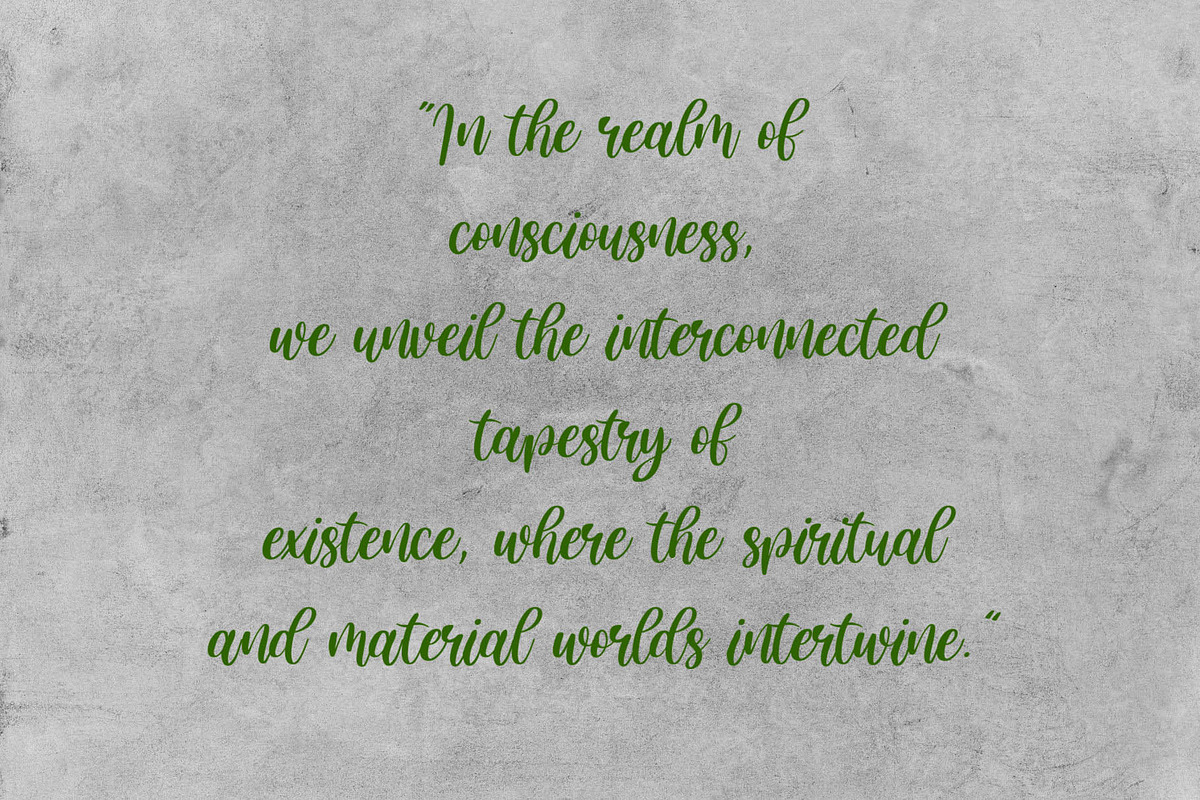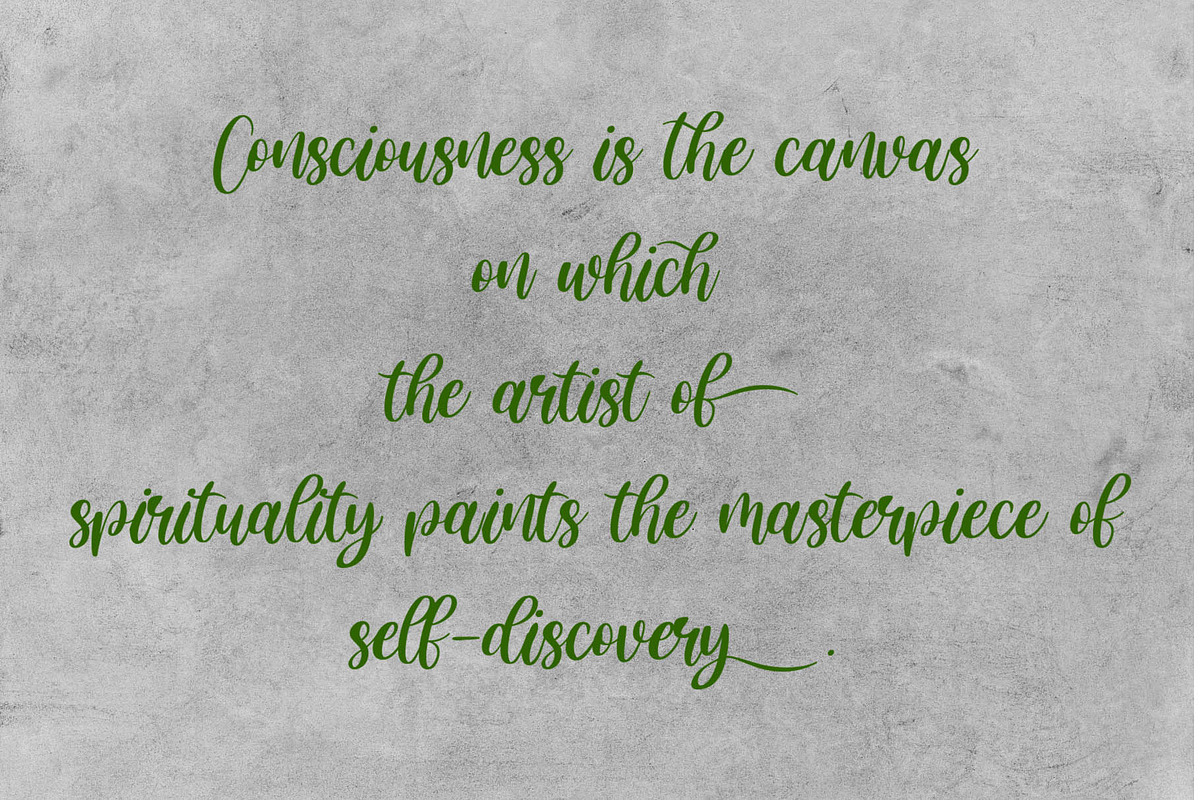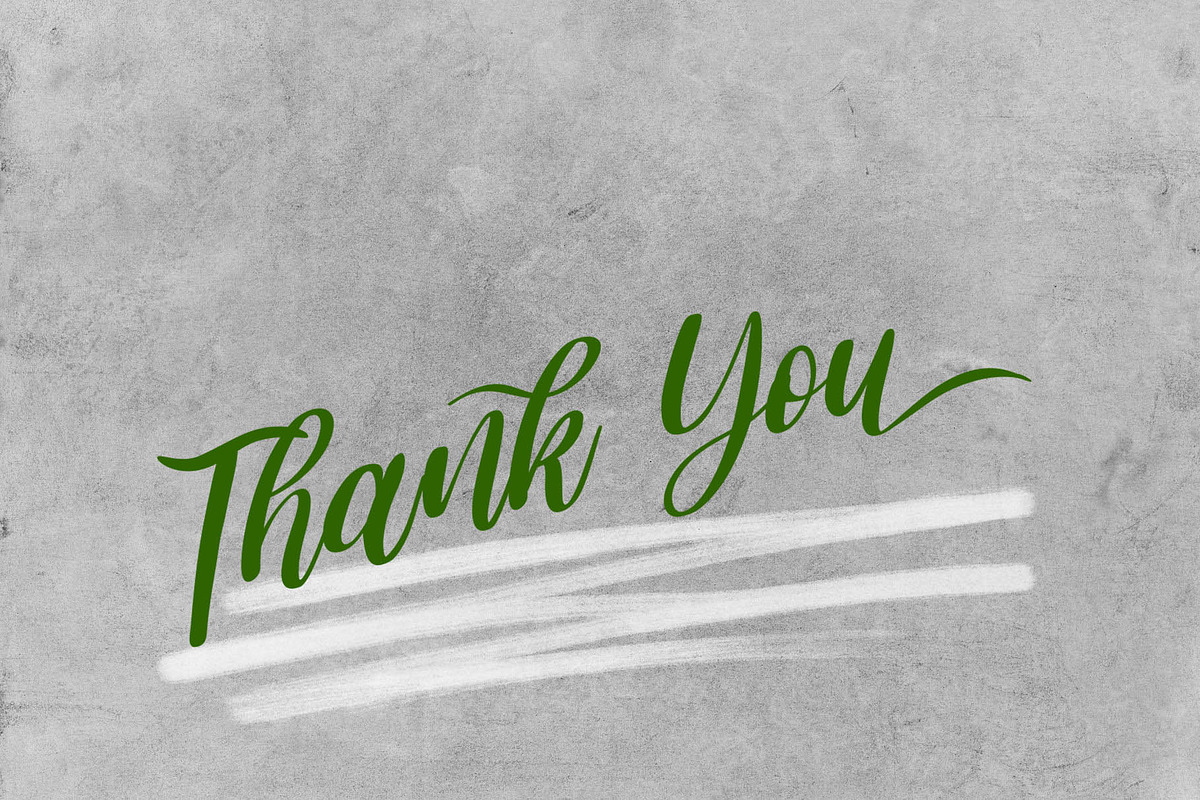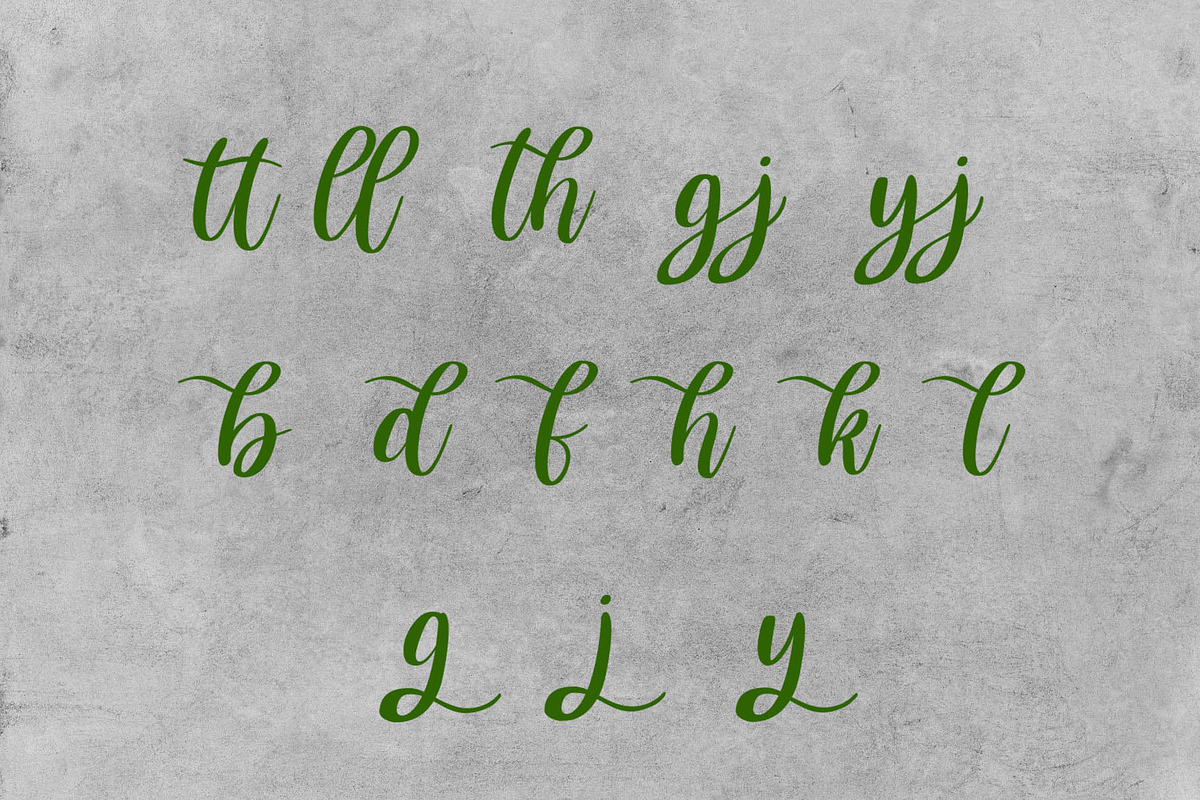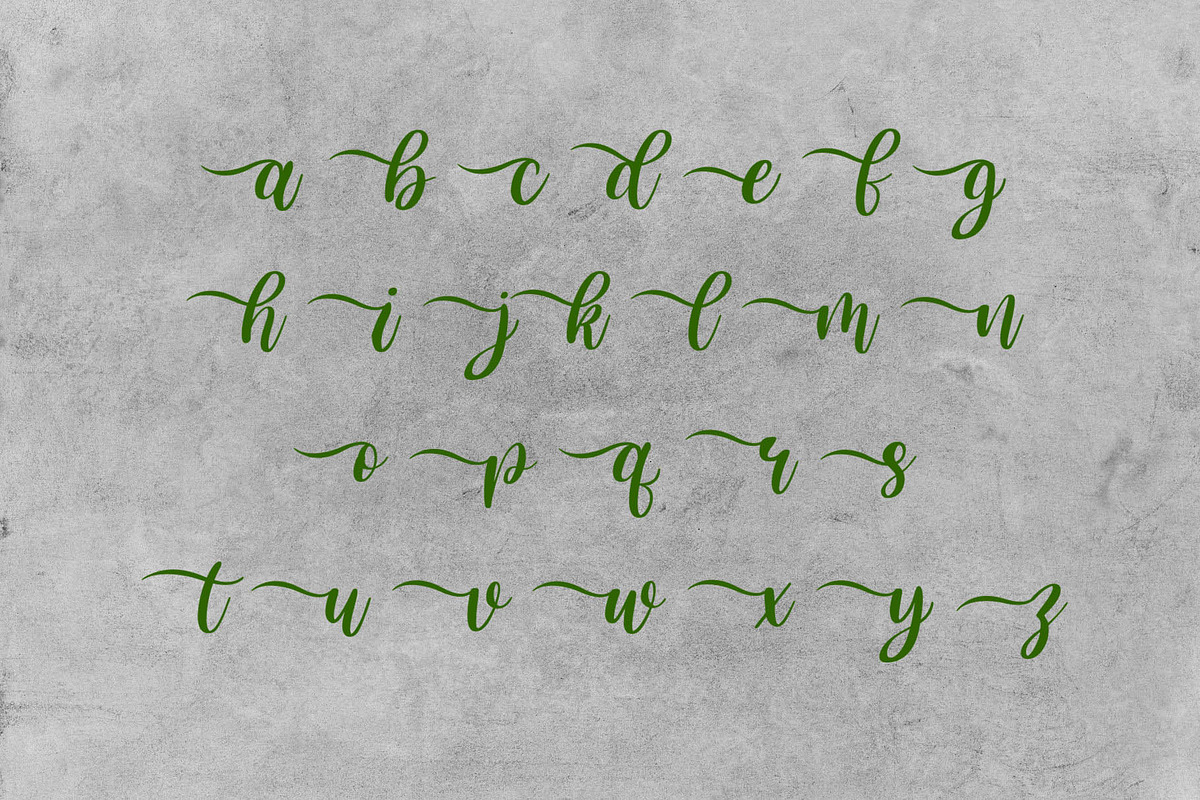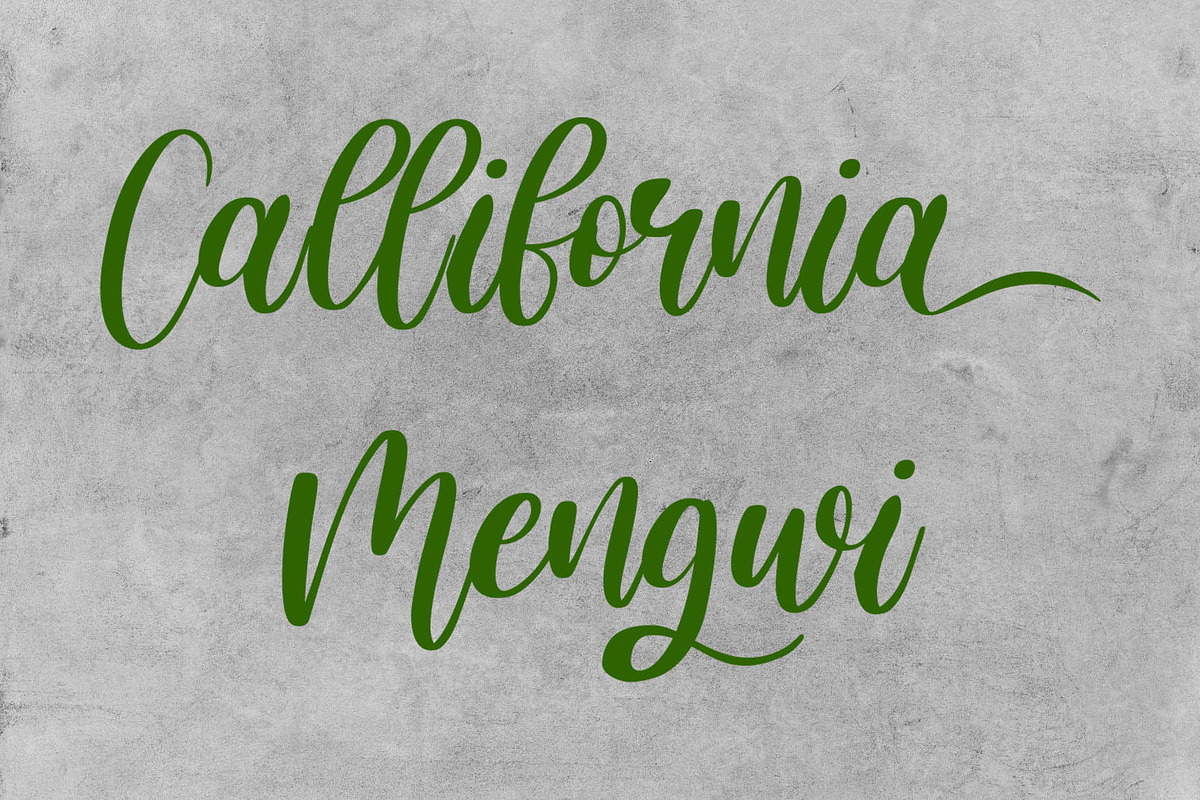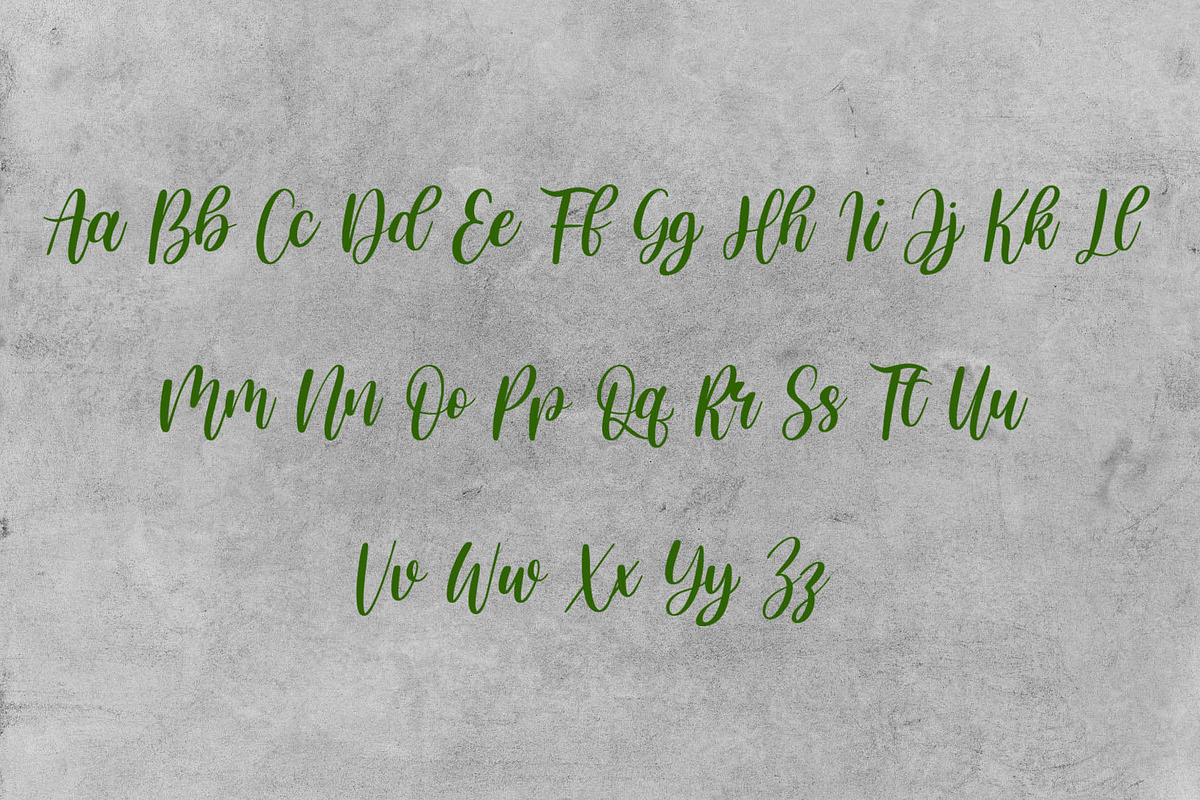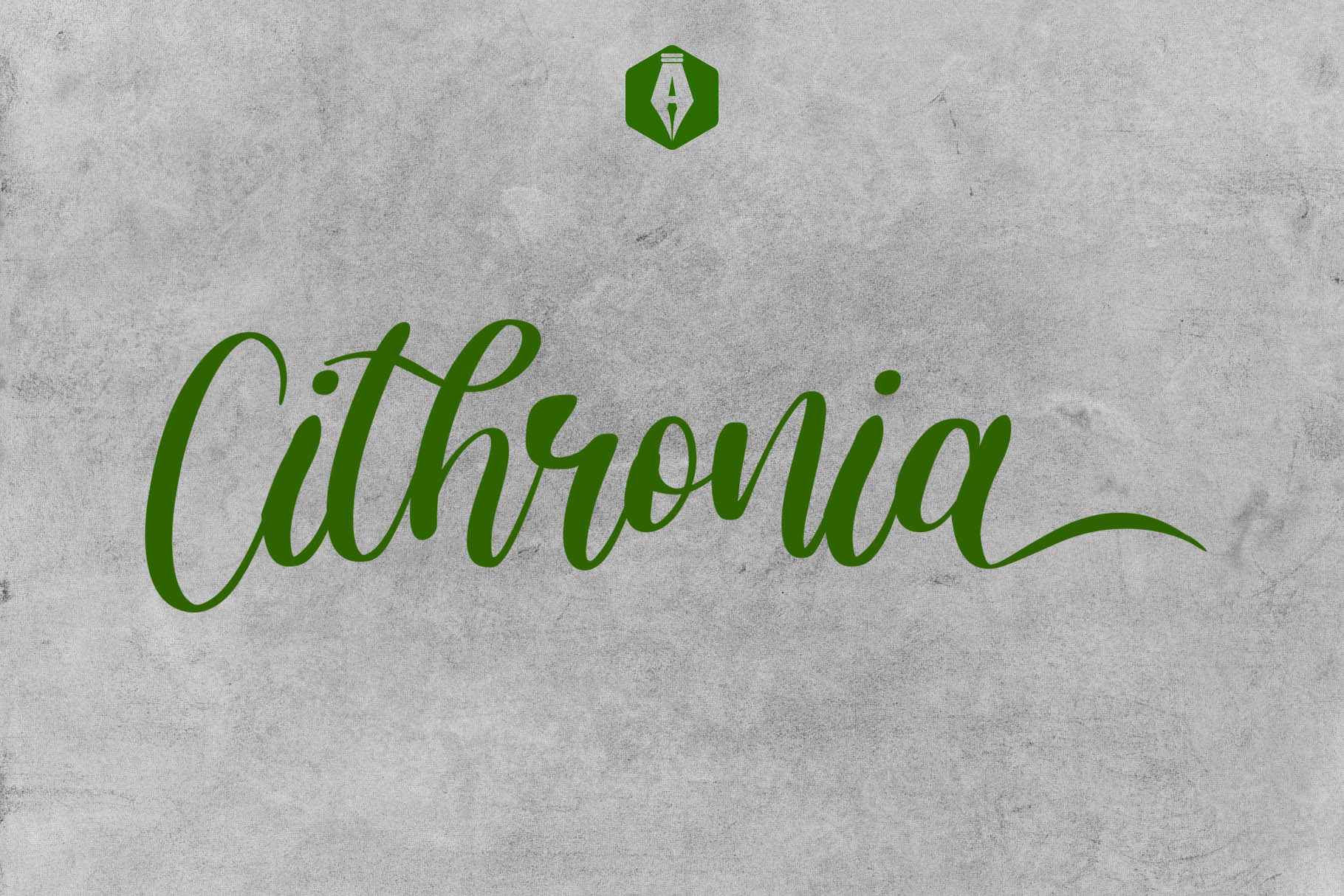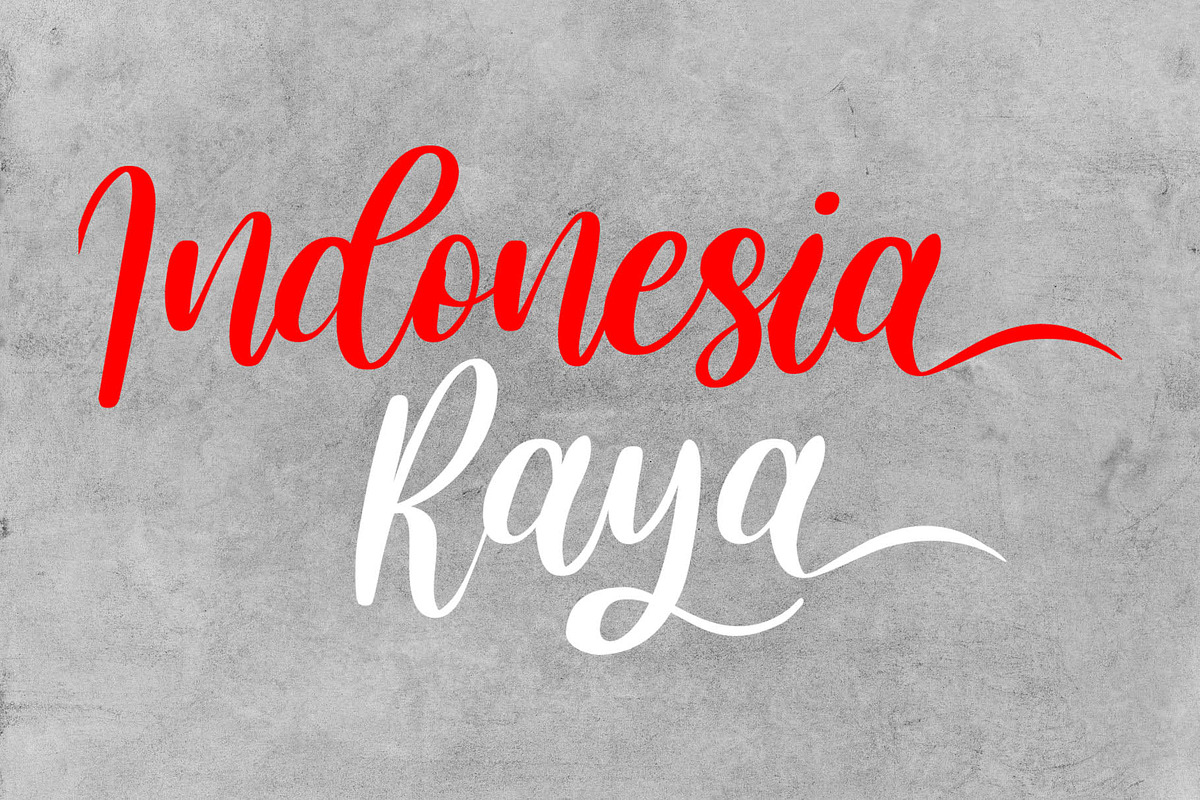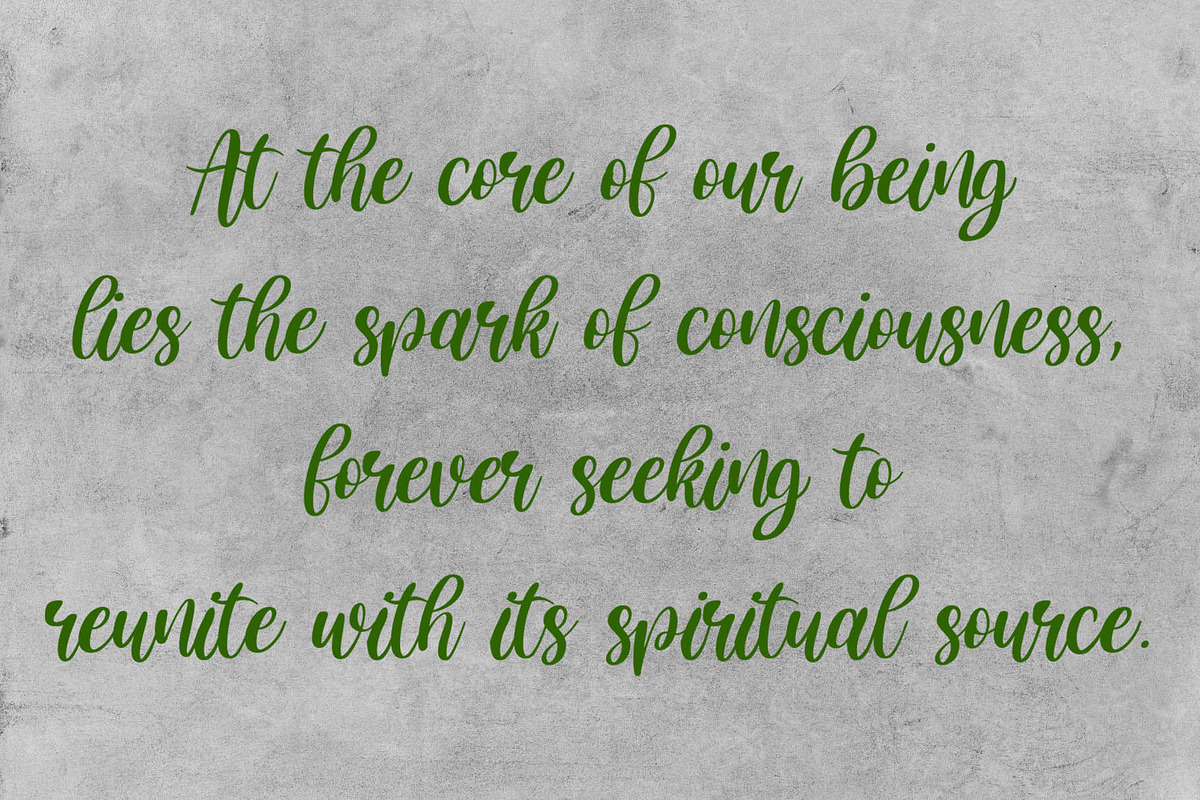
Cithronia Brush Font
Unlock Creativity with Cithronia Brush Font - Your Gateway to Expressive Typography!
Cithronia Brush Font is a captivating typographic gem designed to ignite your creative projects. With its seamless blend of boldness and artistic finesse, this handcrafted font offers a perfect avenue to elevate your designs to new heights.
Embrace the expressive power of Cithronia Brush Font as it effortlessly adds flair to your branding, logo design, invitations, and social media graphics. Its versatile nature ensures a seamless transition from print to digital media, making it an indispensable asset for designers, artists, and visionaries alike.
Crafted with attention to detail, Cithronia Brush Font boasts elegant brush strokes that radiate an organic charm, while maintaining unmatched legibility in various sizes. This premium typeface is your key to unlocking limitless design possibilities and leaving a lasting impression on your audience.
Embrace the artistic allure of Cithronia Brush Font and take your projects on an inspiring journey. Don't miss this opportunity to infuse your designs with a touch of bold creativity - download Cithronia Brush Font today and witness your ideas come to life in stunning typography!